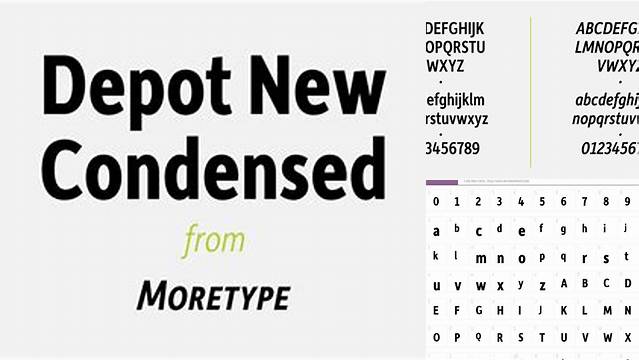
What is Depot New Condensed Font?
Before we jump into the download details, let’s talk about what makes the Depot New Condensed font so special. This font is a contemporary typeface known for its clean lines and condensed form. It’s highly versatile, making it a favorite for everything from headlines and branding to editorial design. Think of it as that stylish friend who looks good in any outfit – adaptable and always on point.
The Unique Characteristics of Depot New Condensed
The beauty of the Depot New Condensed font lies in its simplicity and efficiency. Its condensed nature means you can pack more text into a smaller space without sacrificing readability. The clean lines give it a modern and professional feel, perfect for projects that need a touch of sophistication. It’s like the minimalist apartment of fonts – everything is intentional and stylish.
Why Designers Love Depot New Condensed
Designers are drawn to the Depot New Condensed font for its versatility. Whether you’re crafting a sleek website, designing a striking poster, or laying out a magazine, this font fits right in. Its readability in both large and small sizes makes it a go-to choice for a wide range of applications. It’s the Swiss Army knife of fonts, always ready to tackle any design challenge.